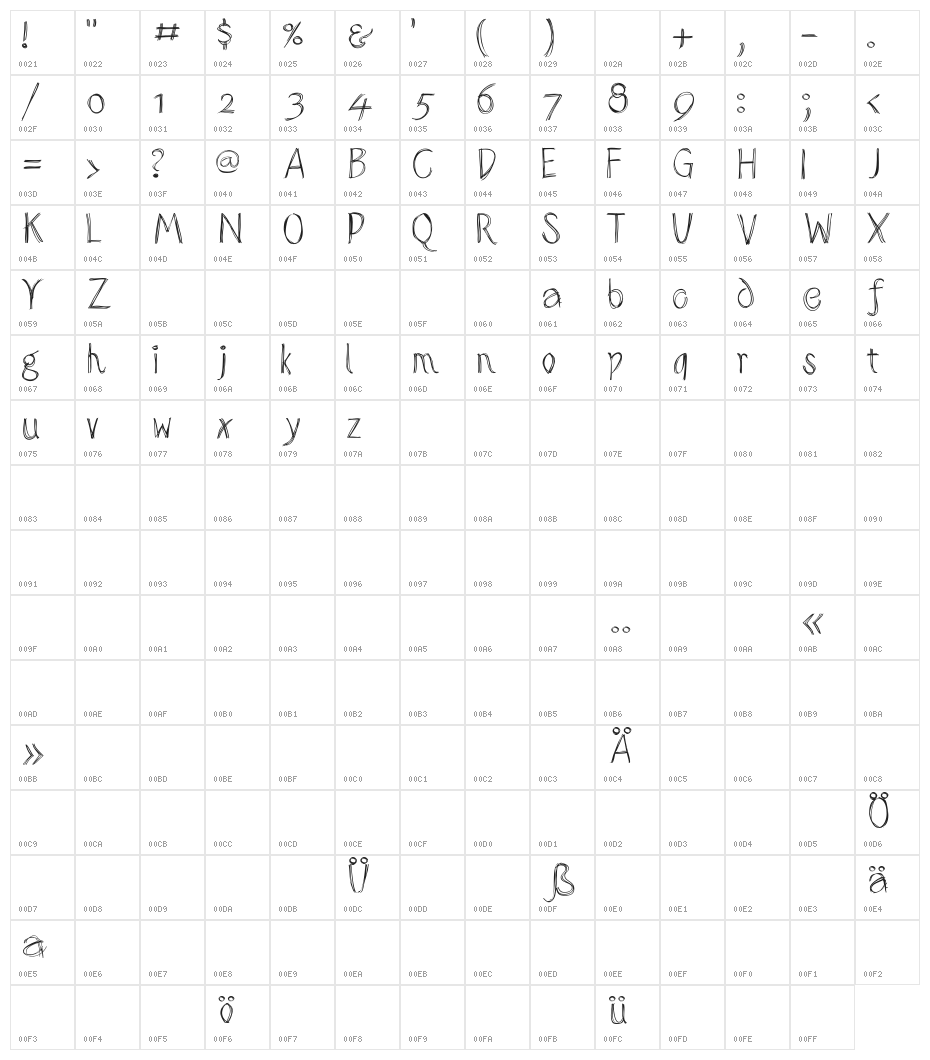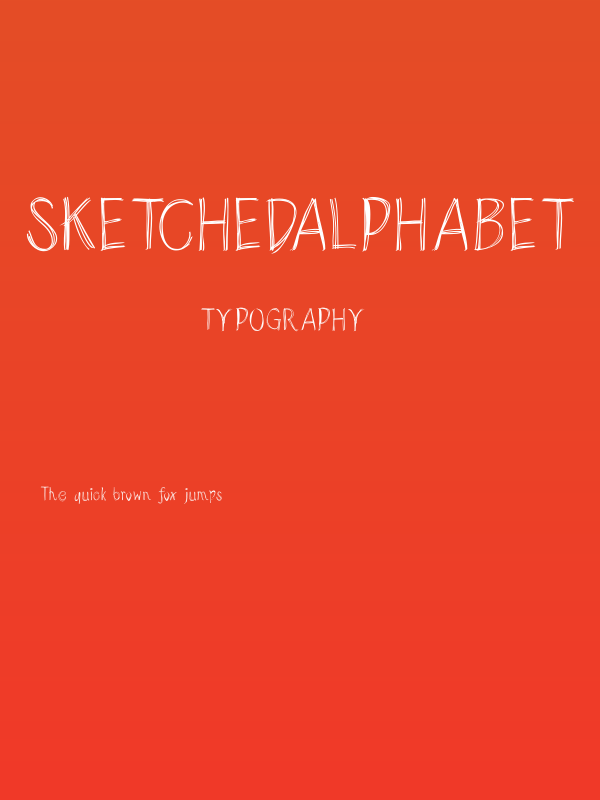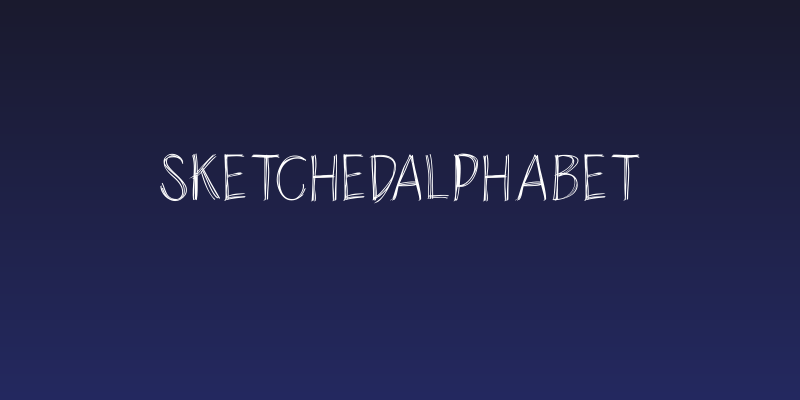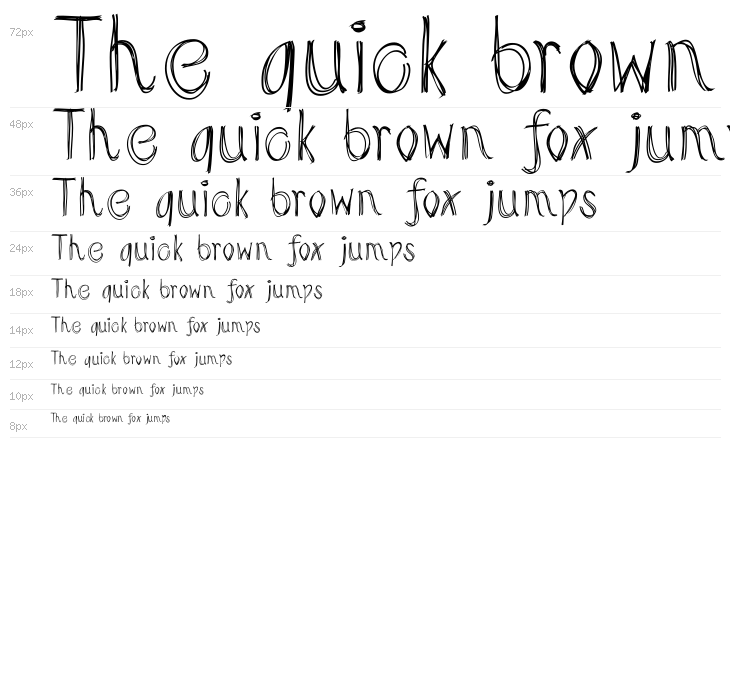
SketchedAlphabet Font
SketchedAlphabet Description
This font features a playful, hand-drawn style with a sketch-like appearance. Each character is crafted with irregular strokes, giving it a whimsical and artistic feel. The uppercase and lowercase letters maintain a consistent style, with the uppercase being slightly more angular and the lowercase more rounded. Numbers and special characters follow the same sketchy aesthetic, adding to the font's cohesive look. The overall design is informal and creative, making it suitable for projects that require a personal touch. The font's unique character is emphasized by its uneven lines and varied stroke thickness, which contribute to its dynamic and lively appearance.
| Proposed Projects | Ideal for children's books, creative posters, artistic branding, and casual invitations. |